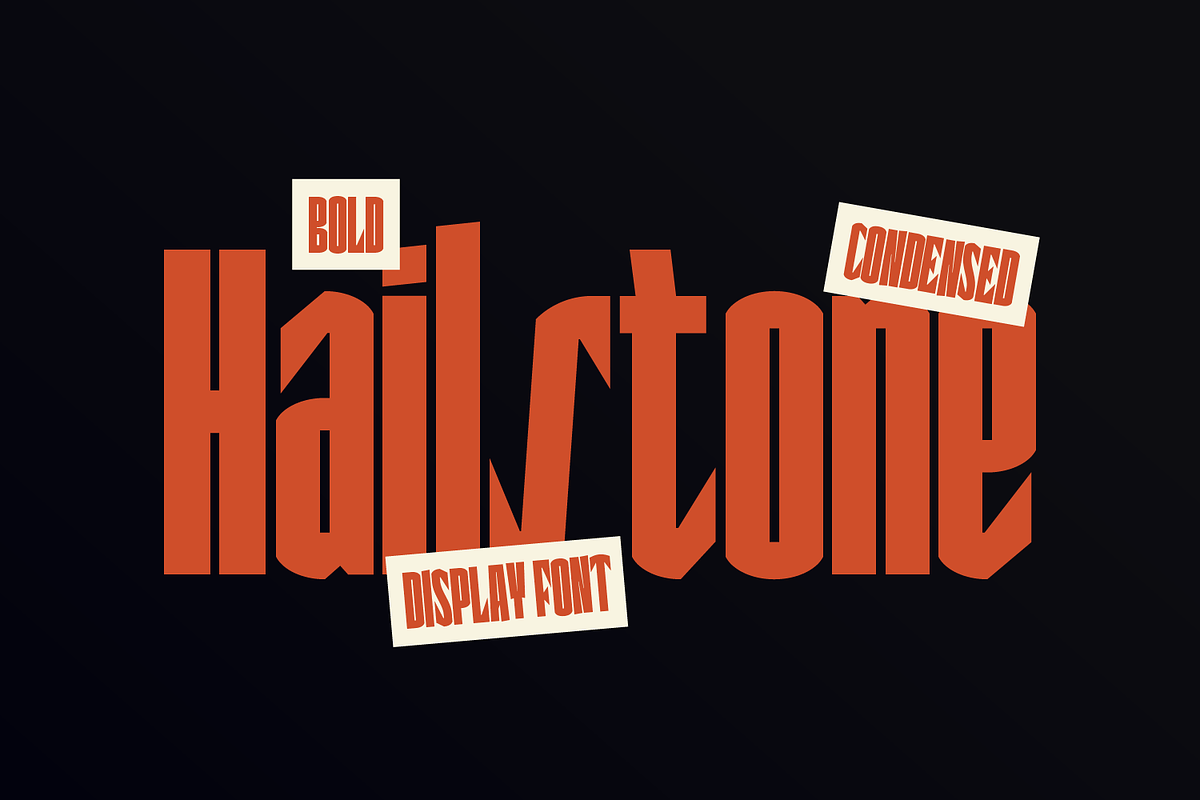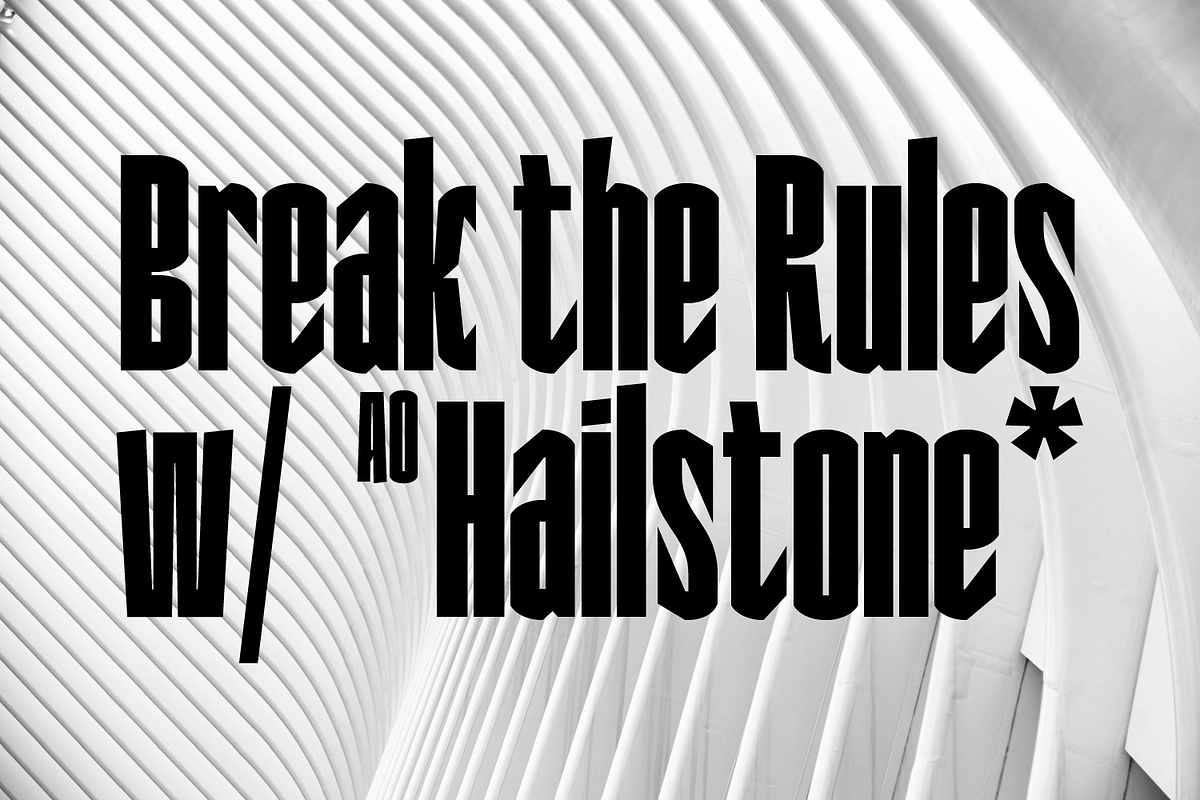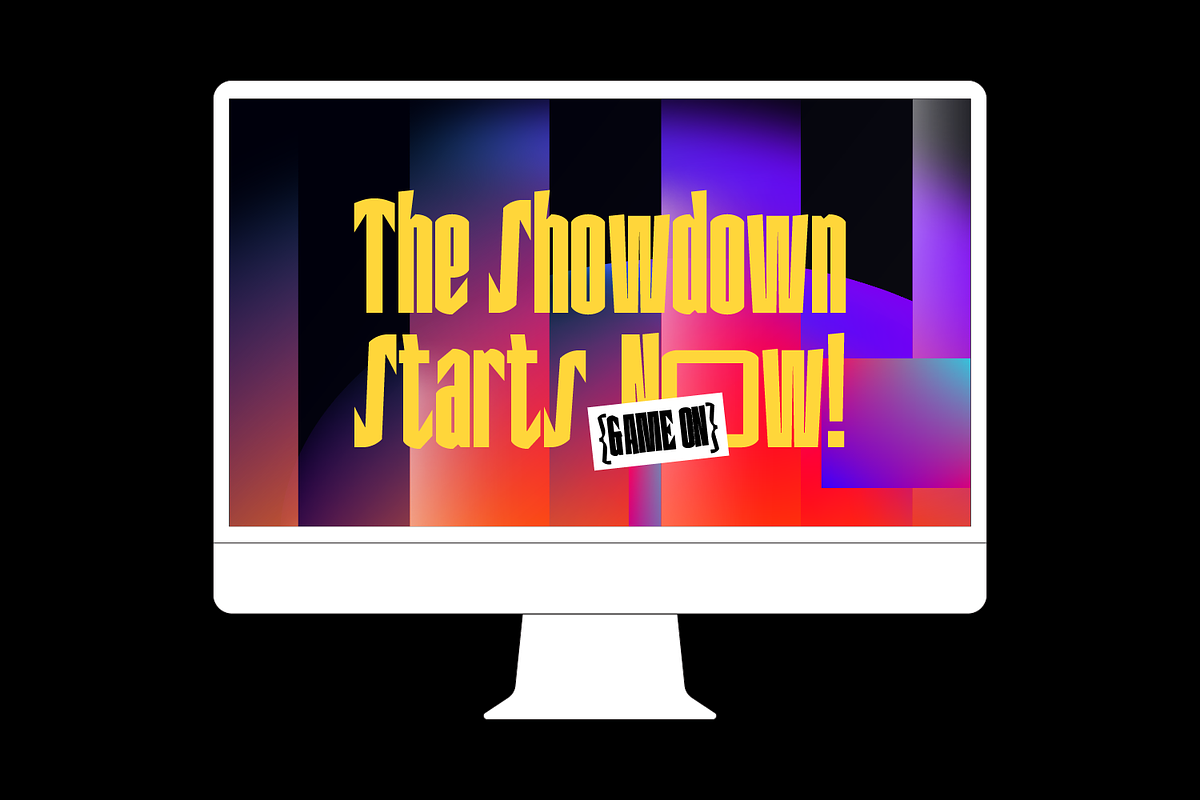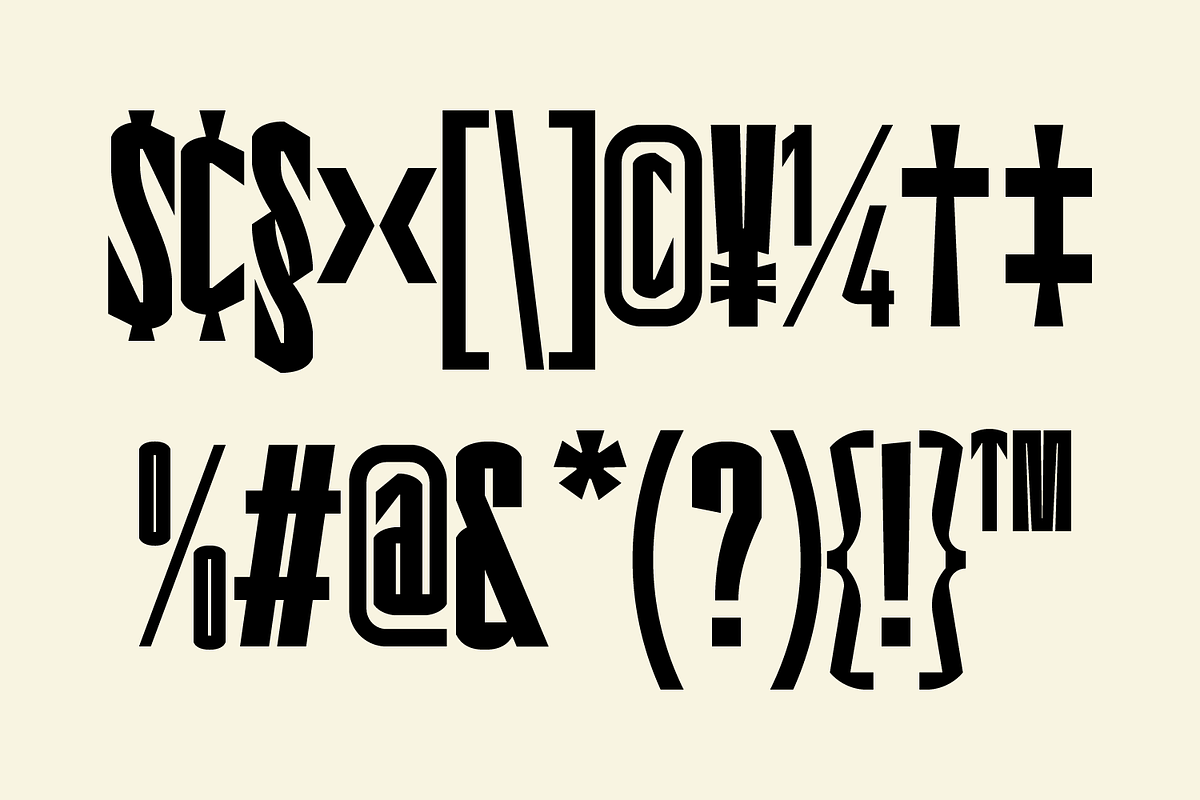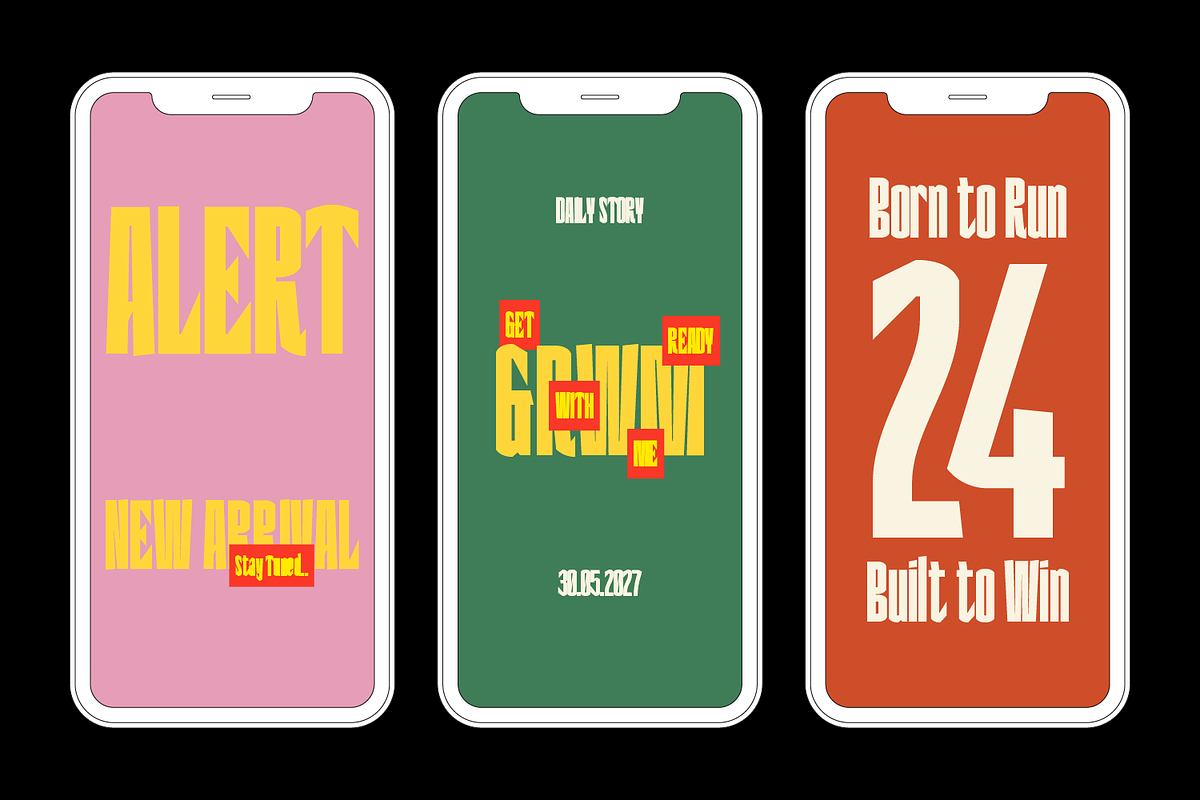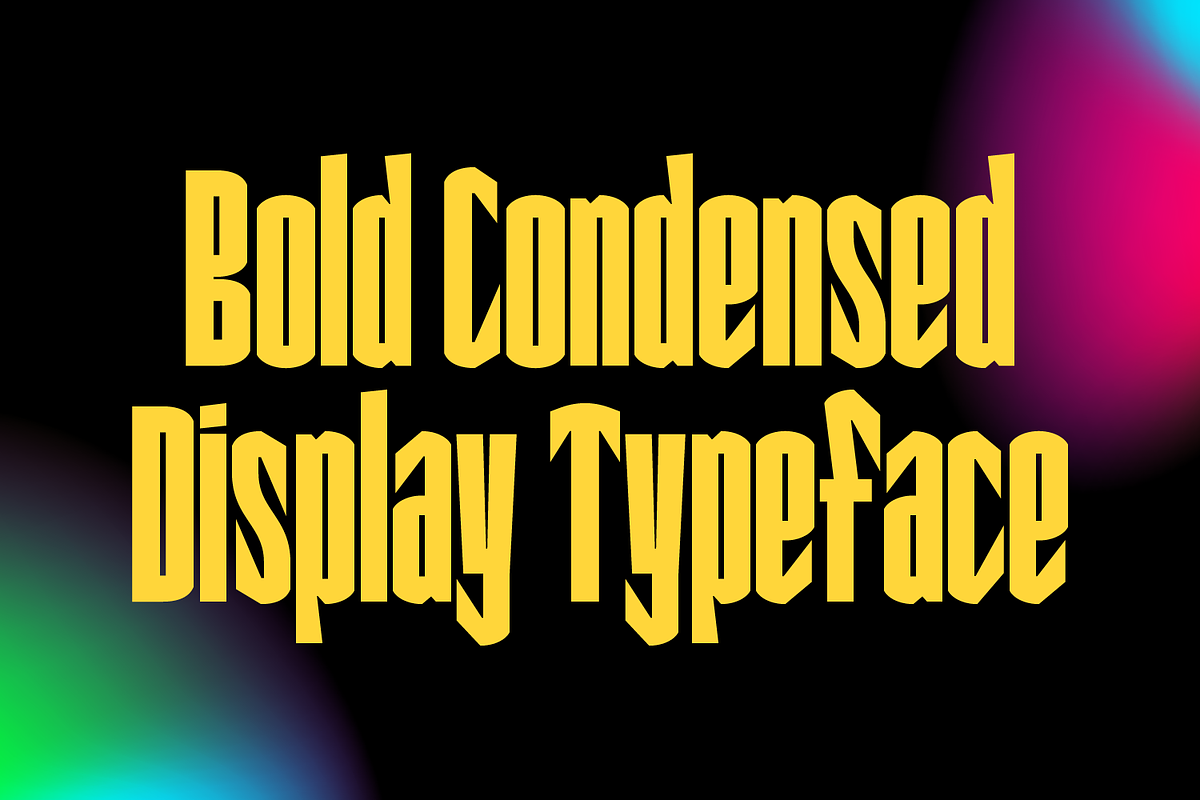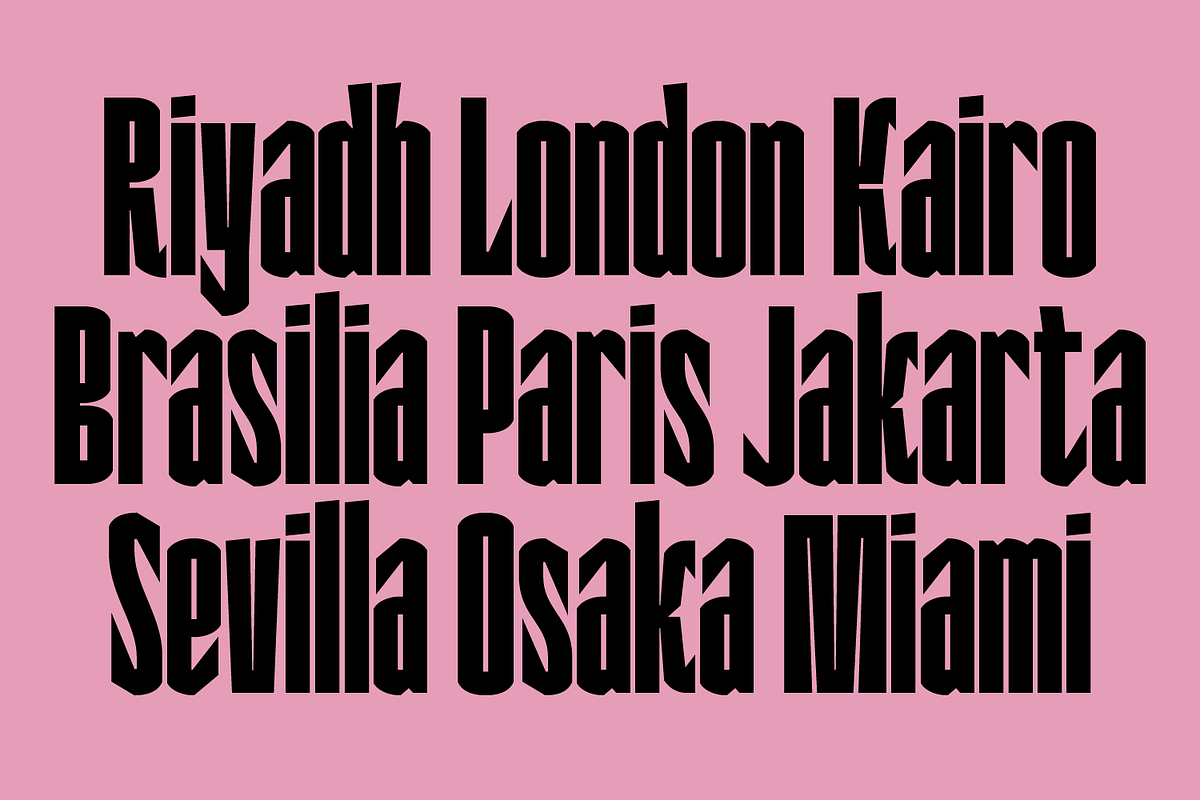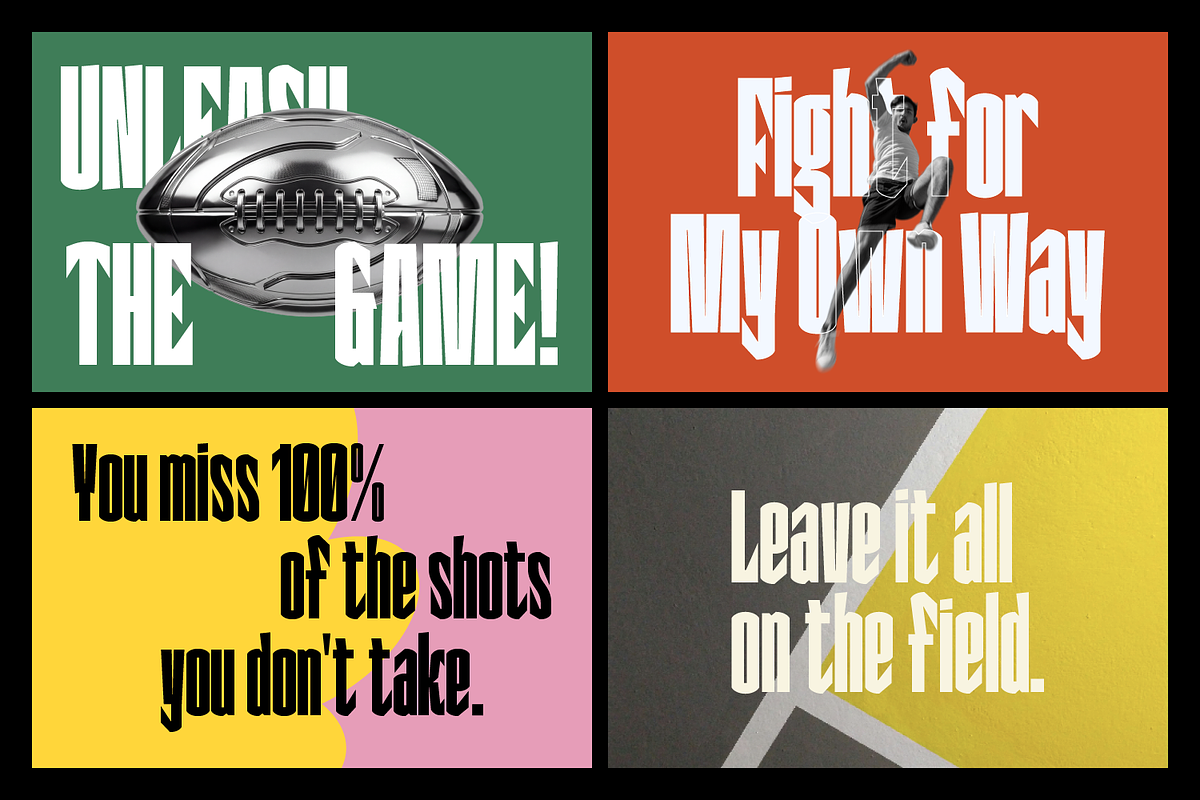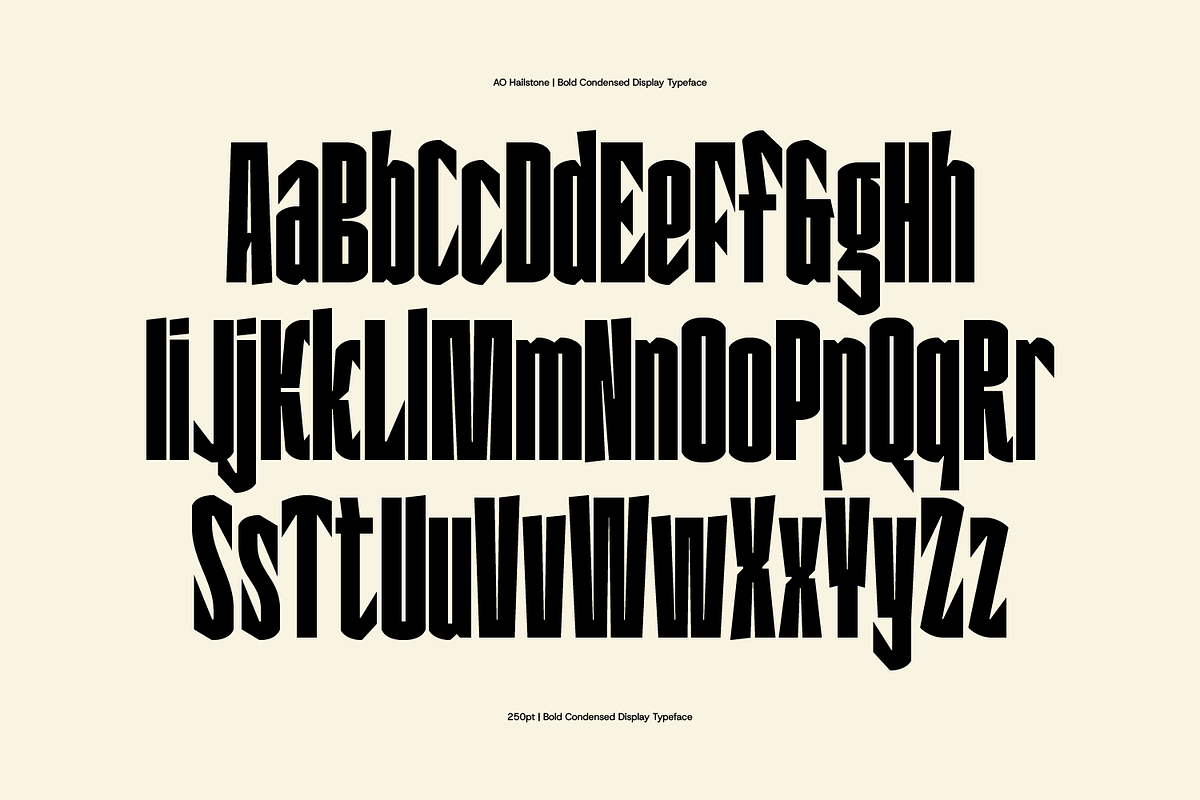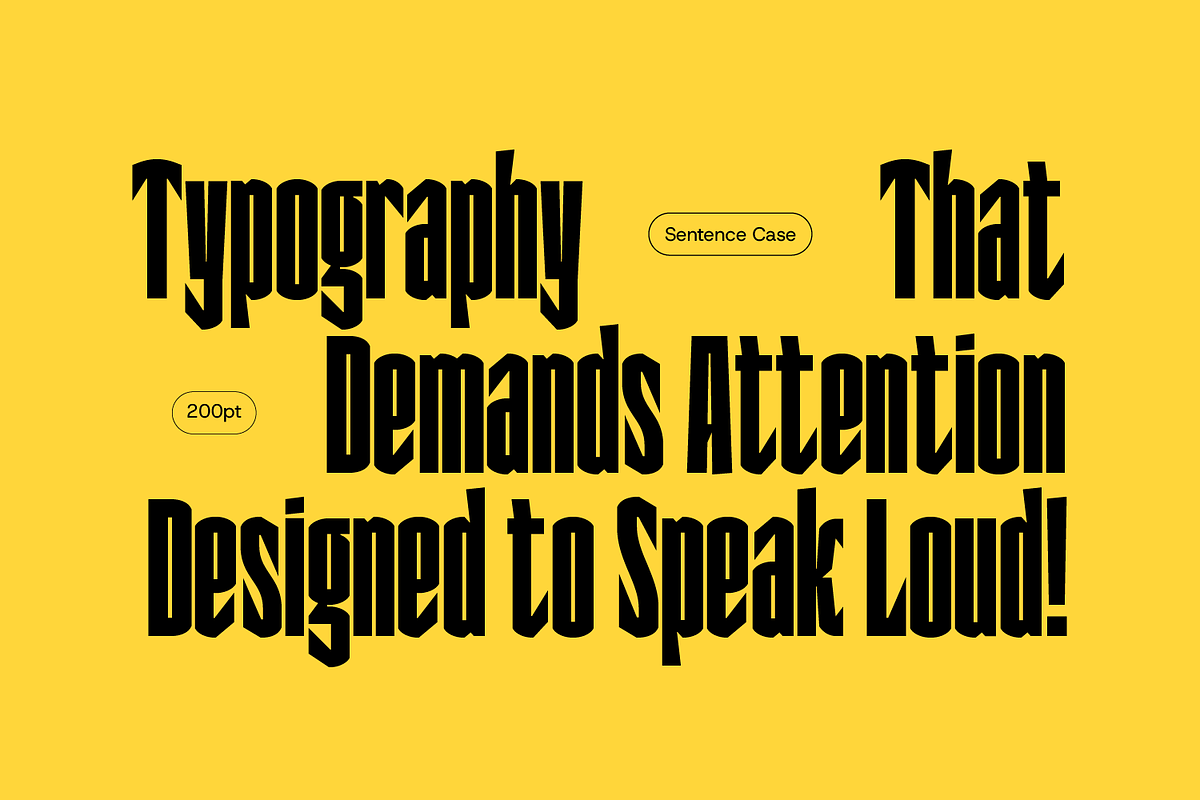
AO Hailstone - Condensed Display
Hailstone is a bold condensed display font designed to create maximum impact. Featuring tall, strong letterforms with a clean modern aesthetic, this typeface is perfect for eye-catching and high-impact typography. Delivers a confident and contemporary look that stands out across both print and digital platforms. Its versatile style makes it ideal for modern branding projects that demand bold, readable, and memorable typography.